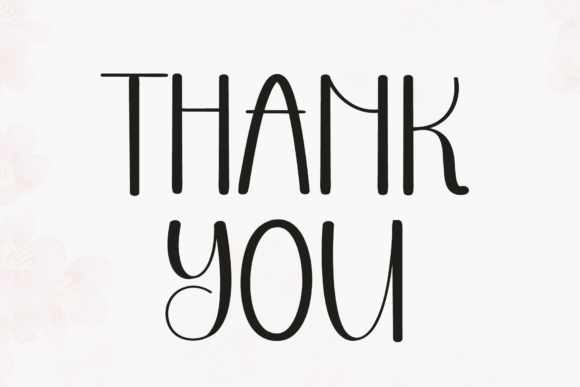
Unleashing Your Creativity with the Perfect Font
As a designer, there’s nothing quite like the thrill of bringing a new project to life. You’ve got a blank canvas, a vision in your mind, and a sea of possibilities at your fingertips. But the key to unlocking that perfect design lies not just in your creativity, but also in the right tools – and that’s where the Fashion Modeling Font comes in.
This lovely and timeless handwritten font is the perfect choice for creating eye-catching logos, branding, and quotes. Its unique and beautiful touch brings designs to life, making it a valuable asset for any designer looking to elevate their work. Whether you’re a seasoned pro or just starting out, the Fashion Modeling Font is sure to inspire your next creative project.
Fashion Modeling Font Key Features
- Unique Characteristics: Features elegant, high-fashion inspired letterforms with delicate details and subtle flair, perfect for fashion, luxury, and high-end branding.
- Character Set: Includes a comprehensive set of characters, including uppercase and lowercase letters, numbers, punctuation, and special characters.
- Language Support: Supports a wide range of languages, including Latin, Cyrillic, and Greek alphabets, making it suitable for global branding and design projects.
- Font Style: Available in Regular and Bold weights, allowing for versatility and flexibility in design applications.
Fashion Modeling Font Review
Overall, I think Fashion Modeling Font has some interesting features, but it also falls short in some areas. Let’s break it down.
- Unique style: The font’s blend of modern and vintage elements is quite striking, making it perfect for projects that need a touch of sophistication and glamour.
- High-quality glyphs: The font includes a wide range of glyphs, including many accents and ligatures, which is great for designers who need to work with multiple languages.
- Customizable: Fashion Modeling Font offers a decent level of customization, allowing users to adjust the font’s size, color, and style to suit their needs.
- Limited font sizes: The font is only available in a limited range of sizes, which may not be ideal for projects that require precise typography control.
- Lack of consistency: I noticed some inconsistencies in the font’s rendering across different devices and browsers, which can be frustrating for designers.
- Over-reliance on effects: The font’s unique style is heavily reliant on effects like drop shadows and gradient fills, which can make it look dated or over-the-top if not used judiciously.
While Fashion Modeling Font has some great features, its limitations hold it back from being a top choice for designers. With some refinements to its font sizes, consistency, and effect usage, it could be a real showstopper. As it stands, I’d recommend it for projects that require a specific, high-end look, but with some caution and careful planning.
The Fashion Modeling Font is perfect for:
- Creating fashion-related designs and graphics.
- Designing marketing materials and advertisements.
- Creating custom typography and graphics for websites and social media.